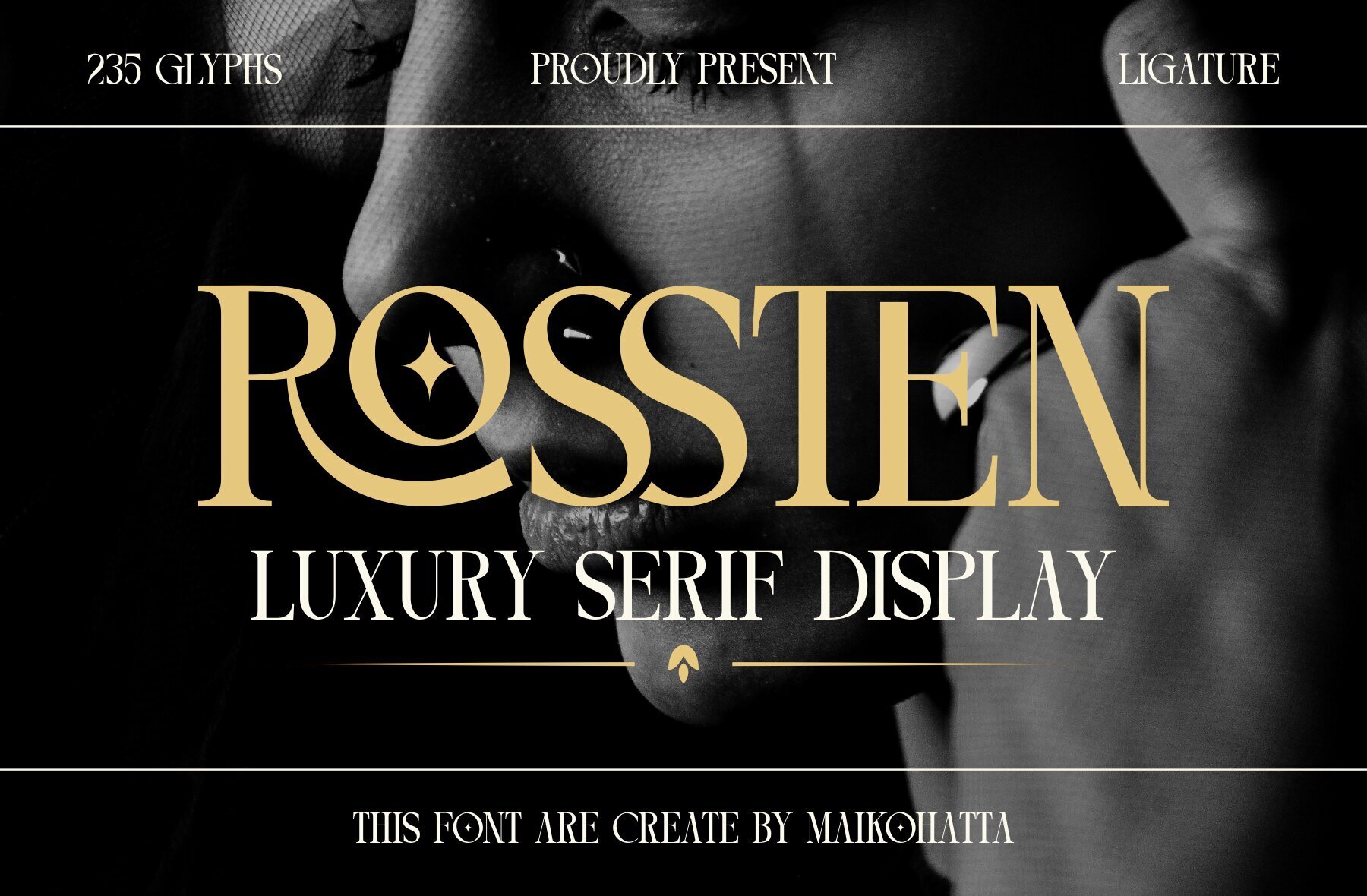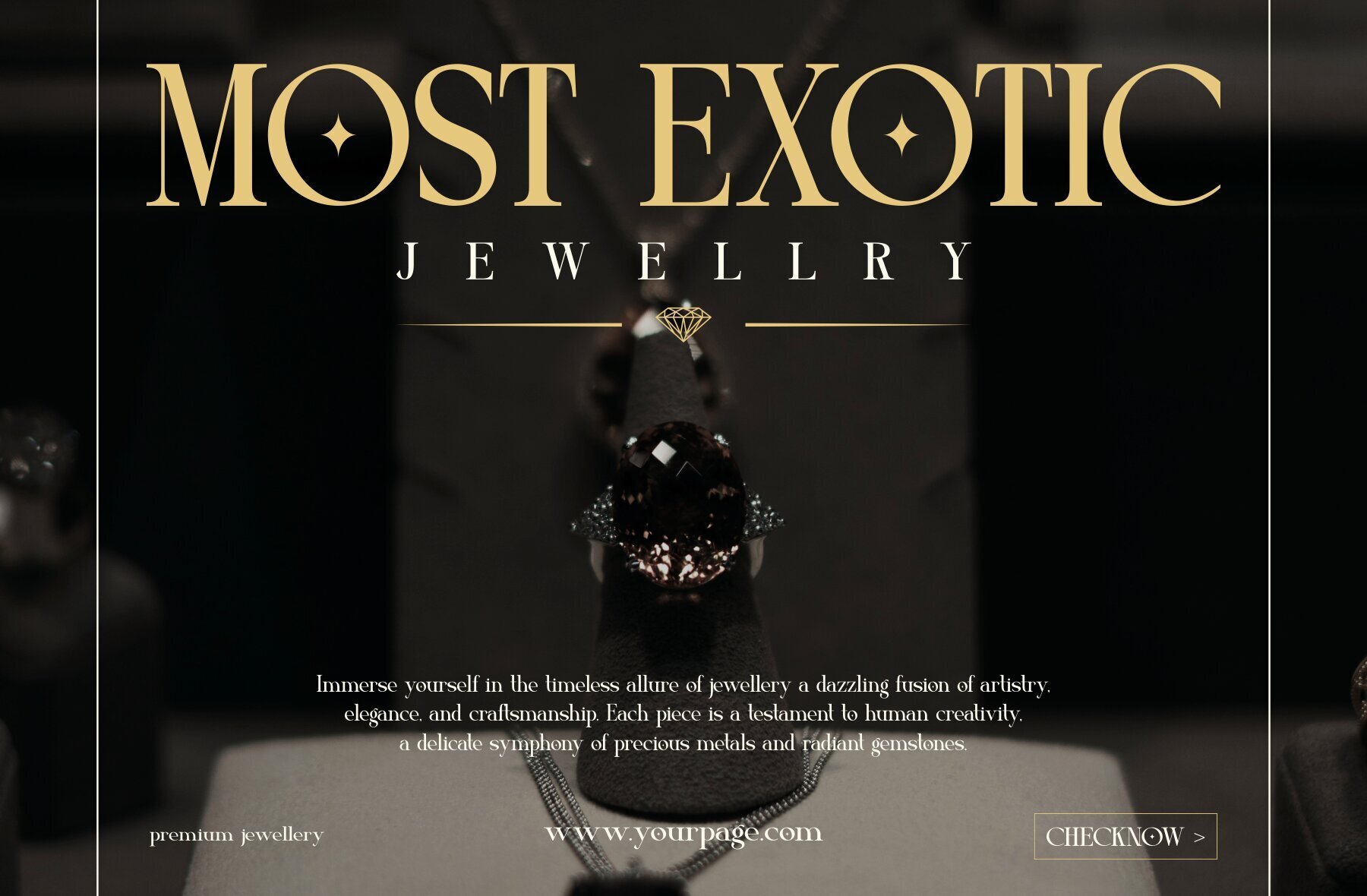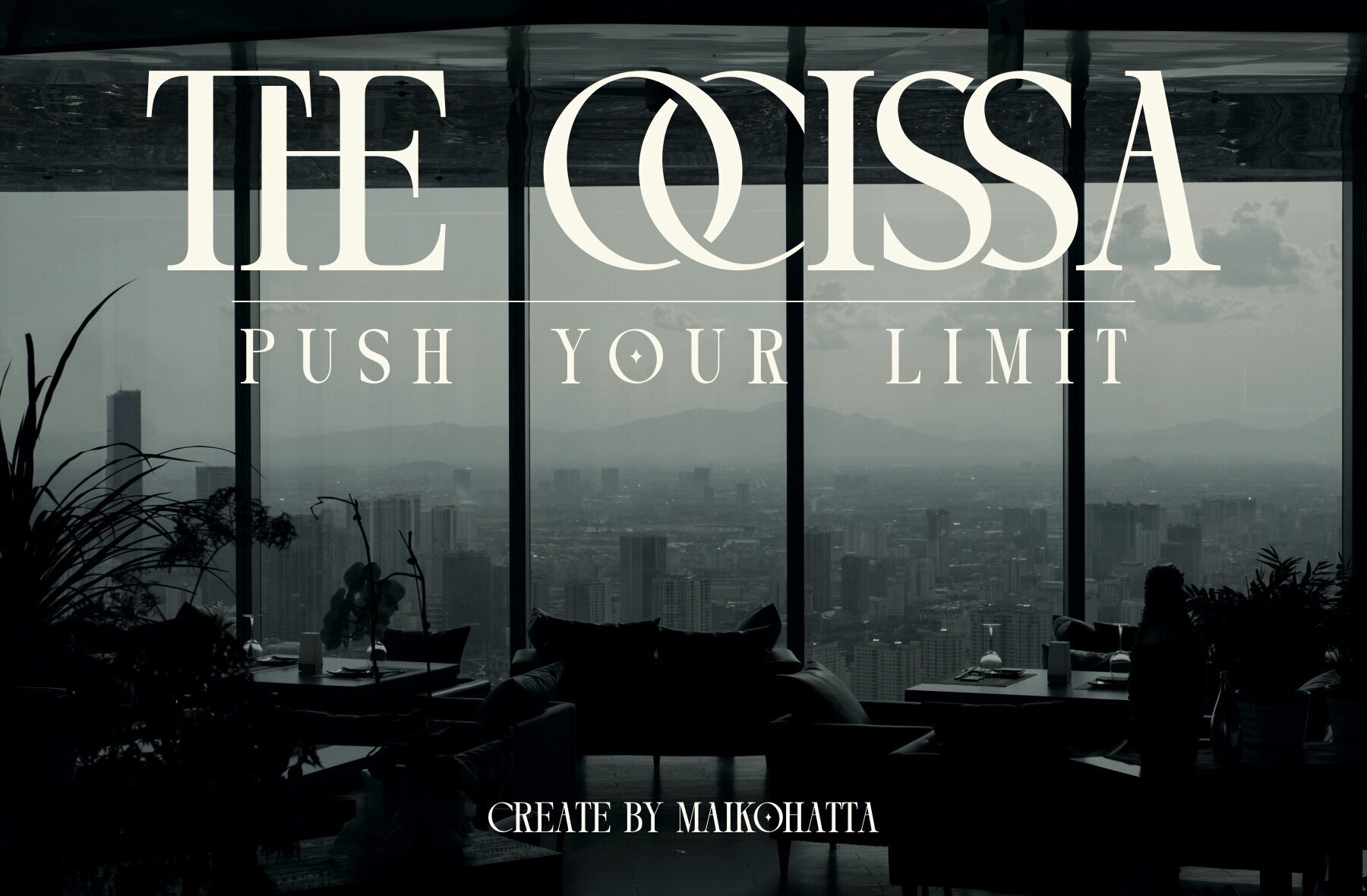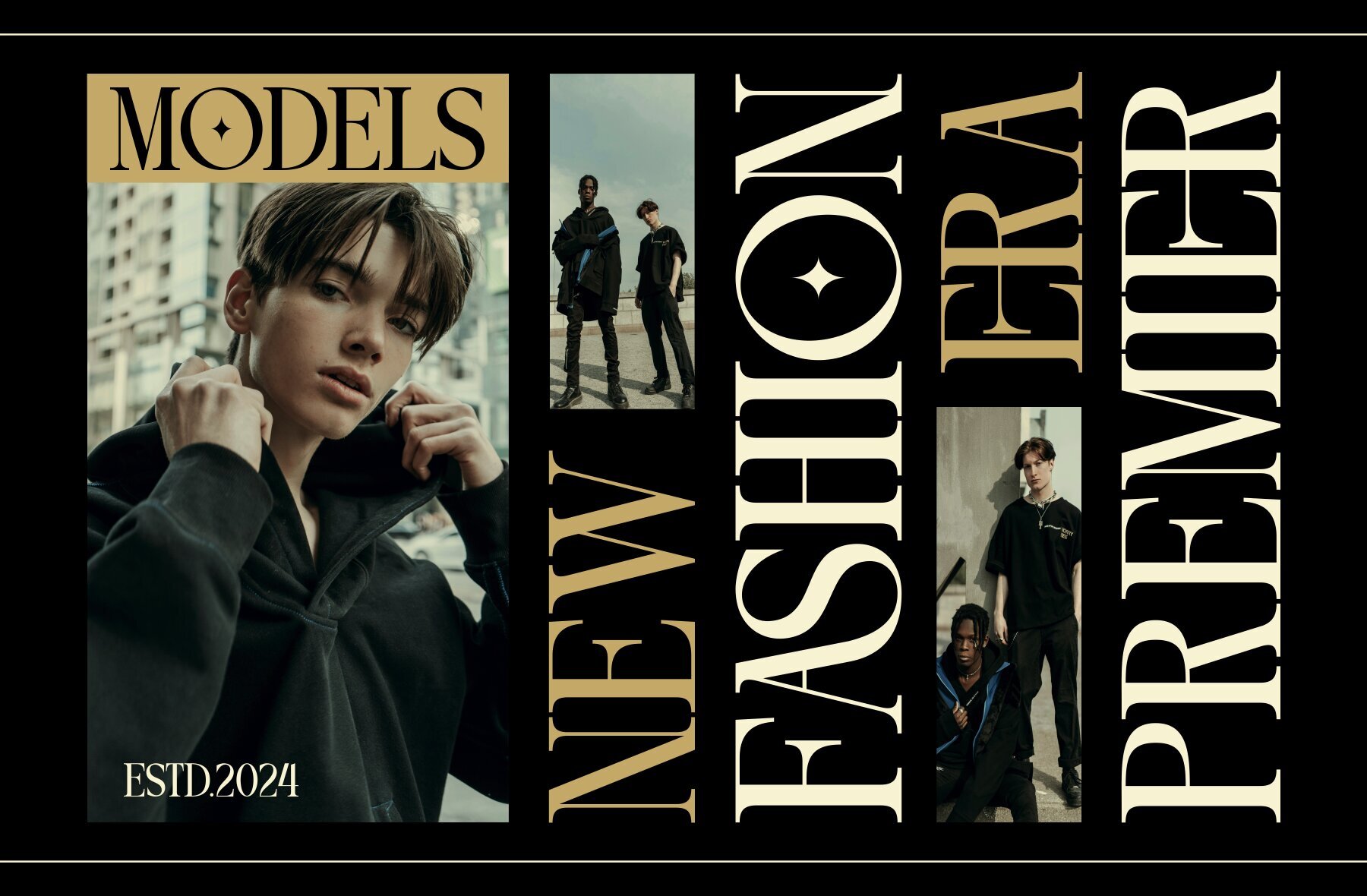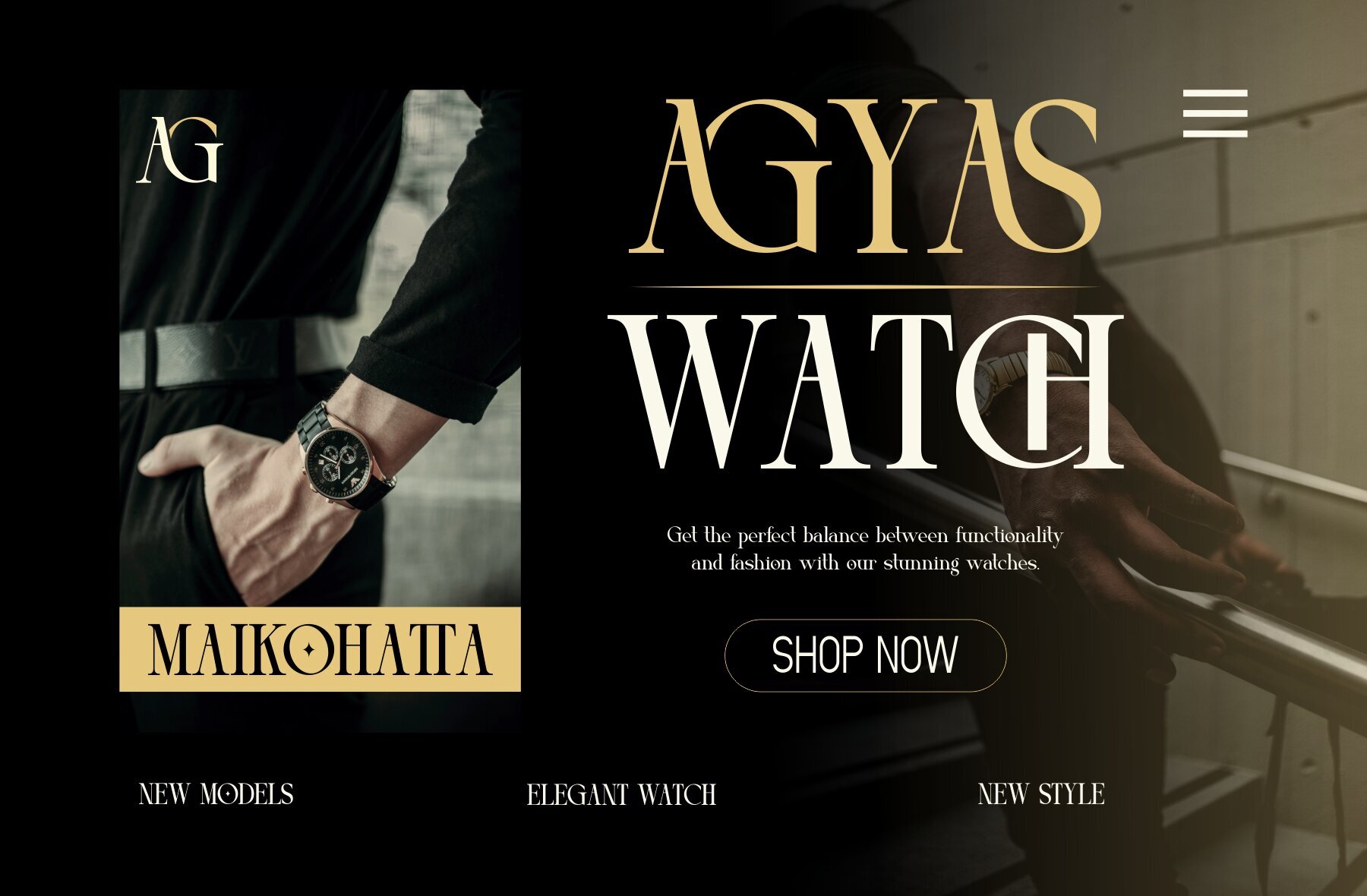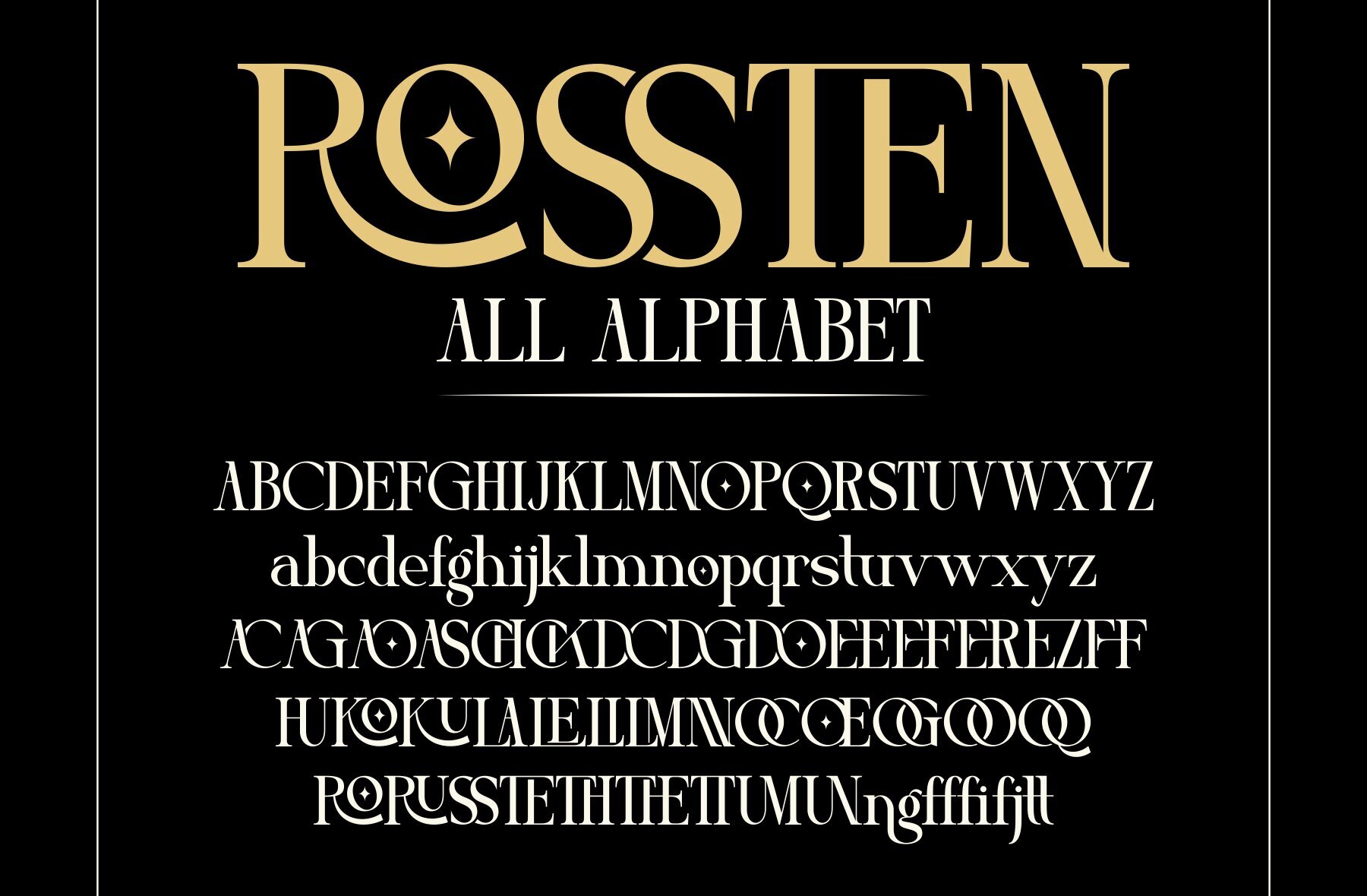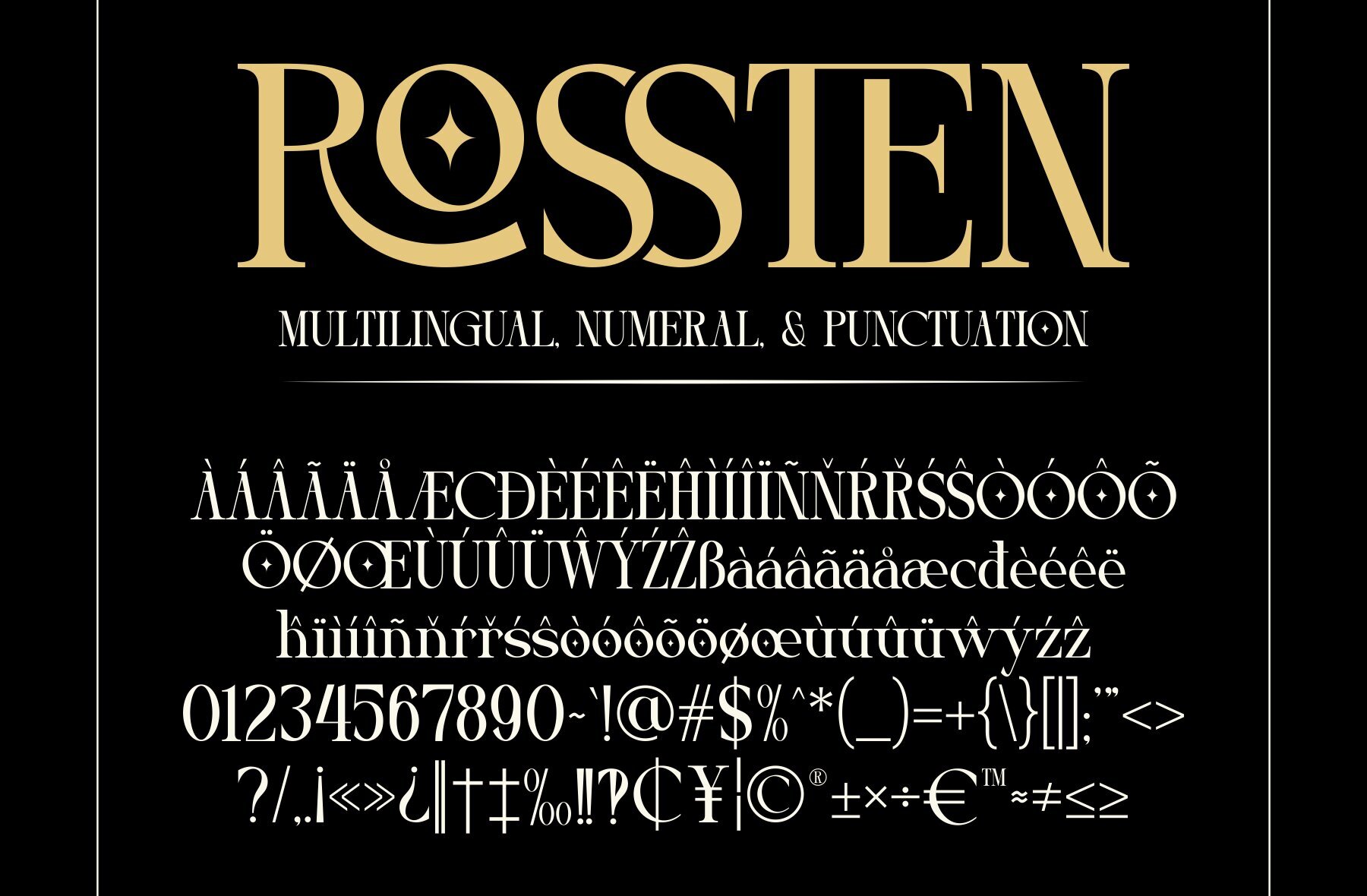
Rossten Font
Rossten Regular
Rossten is a luxury serif display font featuring a balanced proportion of stroke thickness and fineness, resulting in visually appealing and easy-to-read text. Its modern serif style is distinguished by a bold contrast between thick and thin lines, offering an understated yet prominent appearance.Rossten: Luxury Serif Display Font